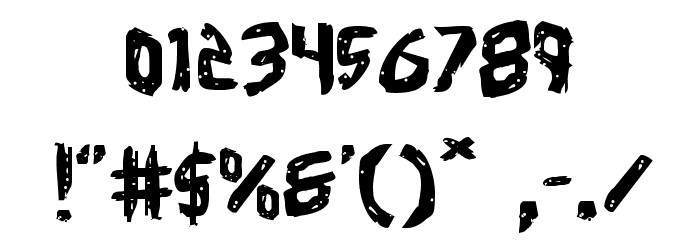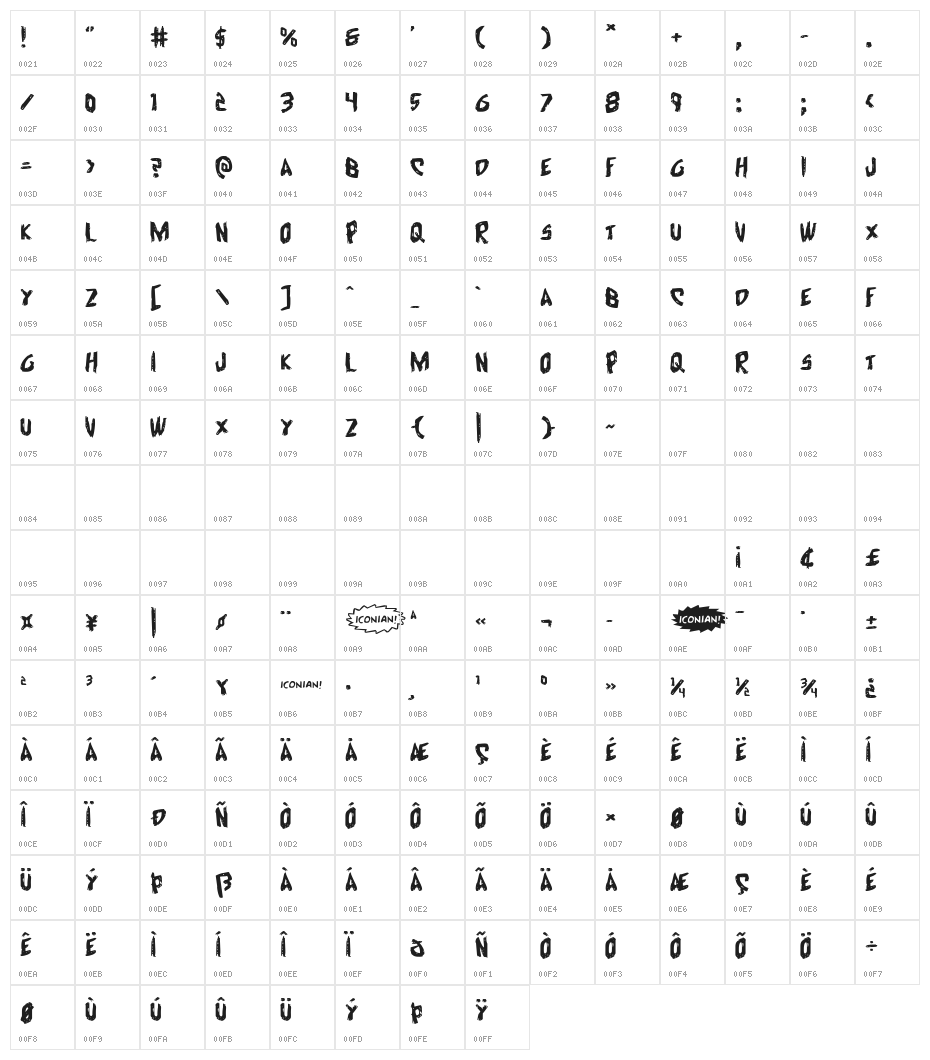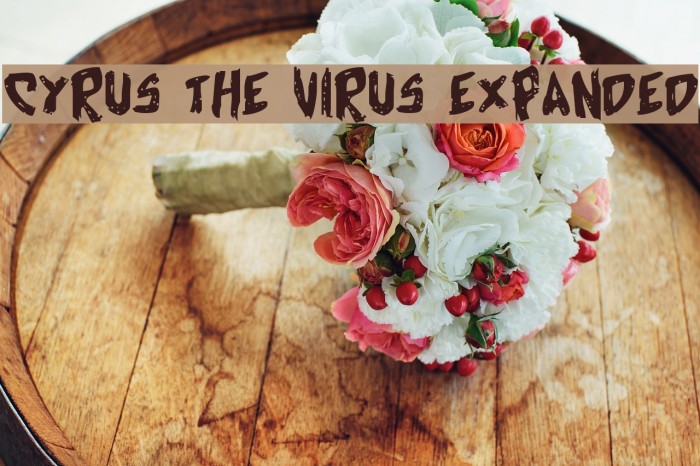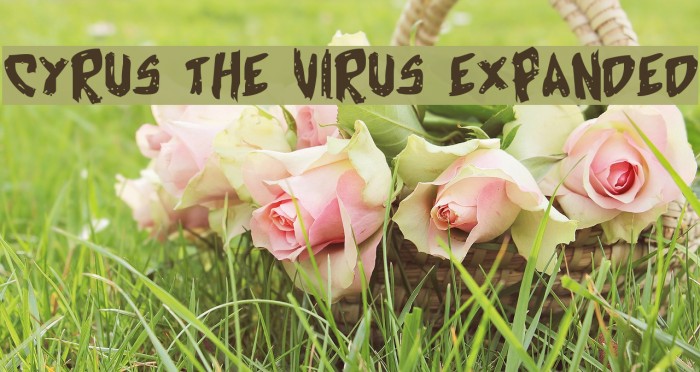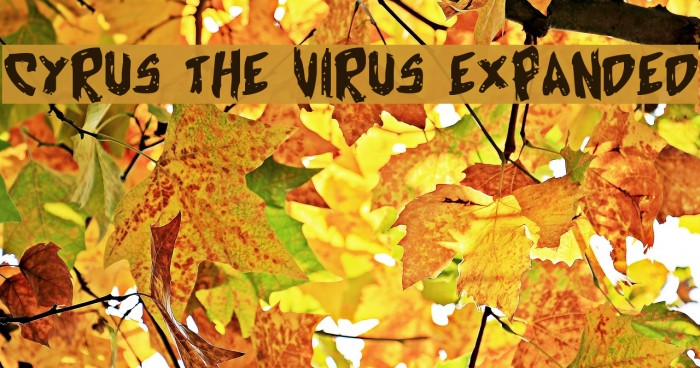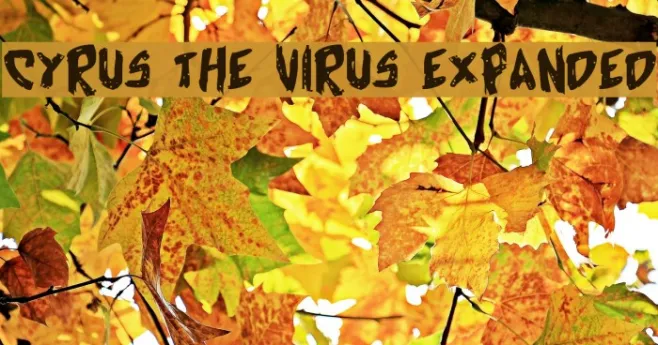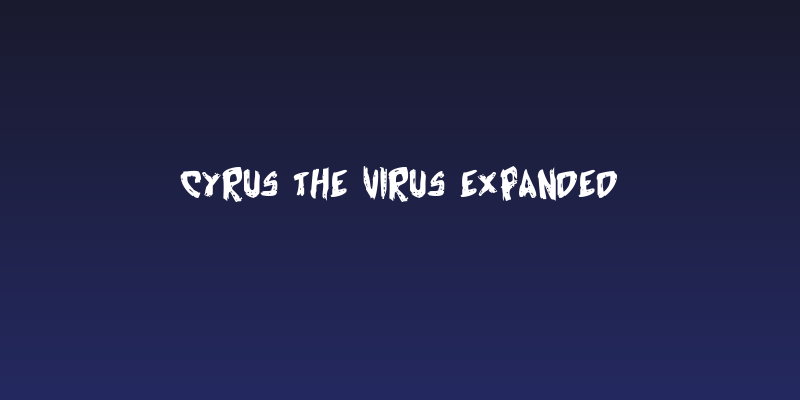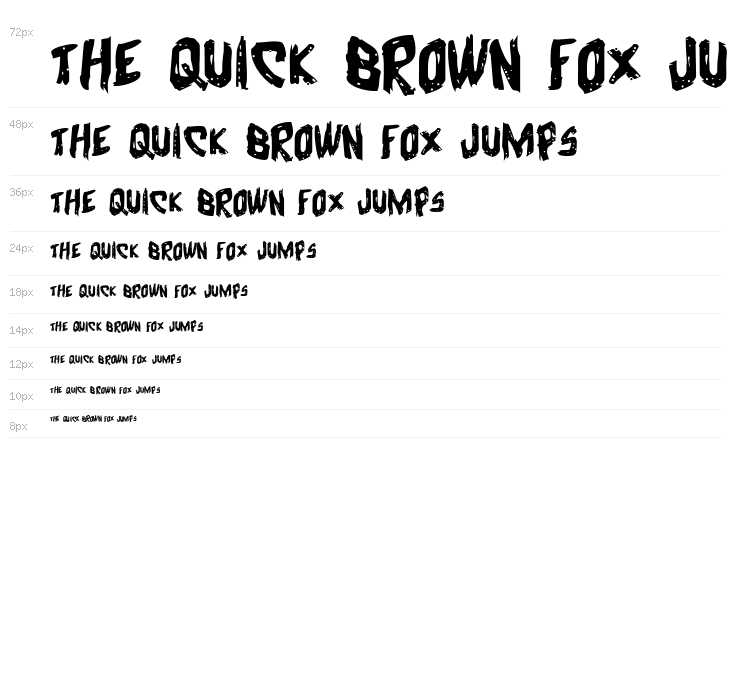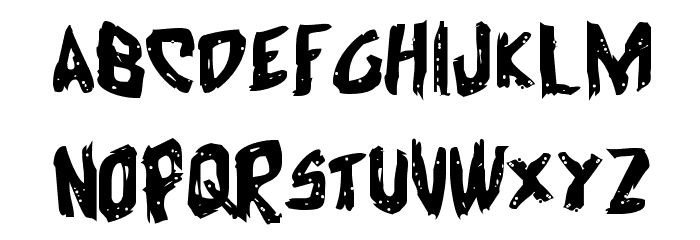
Cyrus the Virus Expanded Font
Cyrus the Virus Expanded Description
This font features a bold and edgy design with a distressed, grunge-like appearance. The characters have a rough, jagged edge, giving them a rebellious and dynamic feel. The uppercase and lowercase letters maintain a consistent style, with exaggerated angles and irregular shapes that add to the chaotic aesthetic. Numbers and special characters follow the same design principles, ensuring a cohesive look across all glyphs. The font's unique style makes it stand out, perfect for projects that require a bold statement.